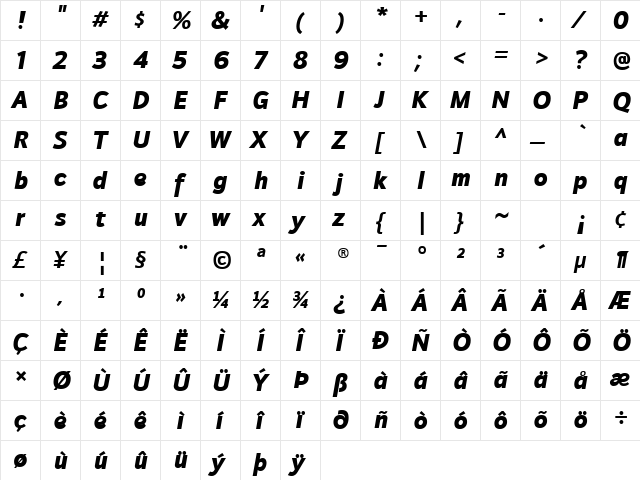
Doradani Black Italic Font Preview
Doradani Black Italic
Design Context for Doradani Typeface
Doradani is a composed and adaptable typeface that performs quietly and consistently across a wide range of design contexts. The slanted form adds forward momentum and visual energy.
Pro Tip: Try Doradani for annotation and caption copy alongside an upright companion — the contrast in angle creates a dynamic but ordered typographic system.